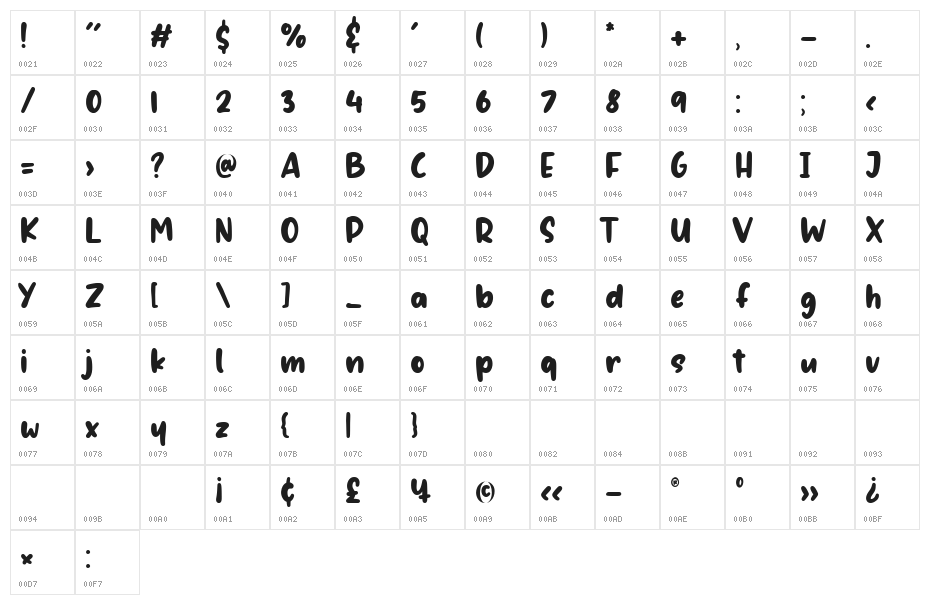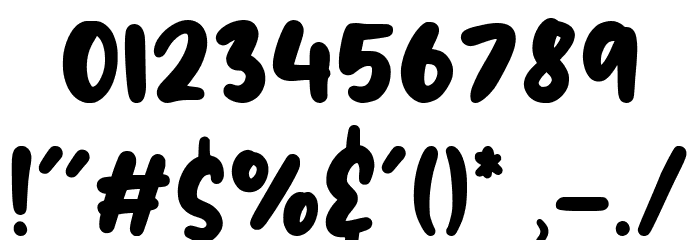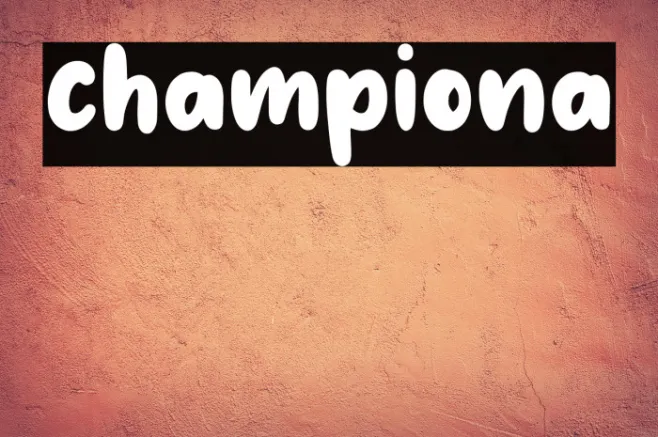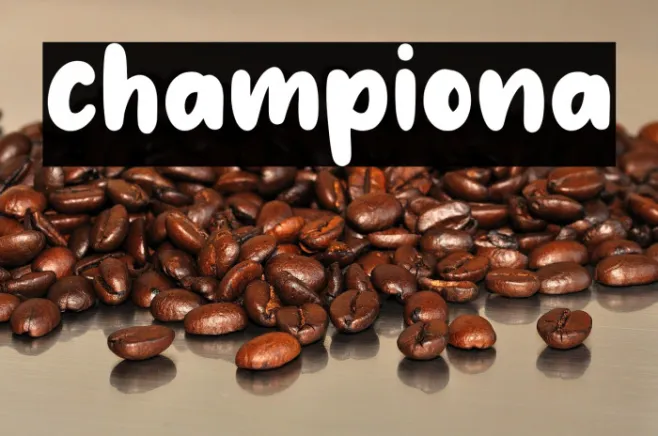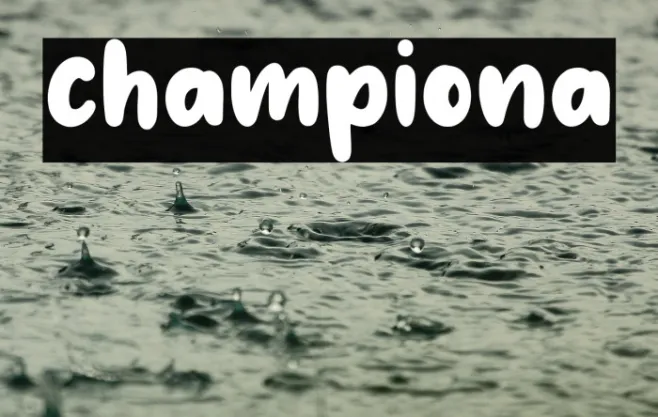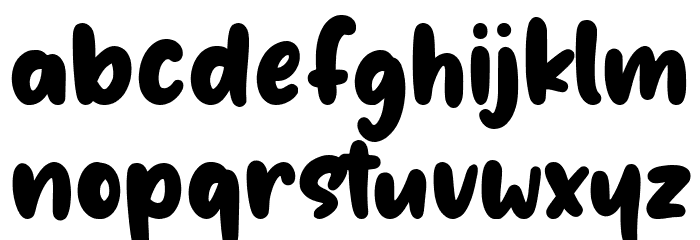
championa Font
championa Description
This font features a bold, playful style with rounded edges and a hand-drawn appearance. The characters are thick and slightly irregular, giving it a casual and friendly vibe. The uppercase and lowercase letters maintain a consistent weight, while the numbers and special characters complement the overall design. The font's informal style makes it suitable for projects that aim to convey a sense of fun and approachability. Its bold strokes ensure readability, even at smaller sizes, making it versatile for various design applications.
| Proposed Projects | Ideal for children's books, playful branding, casual invitations, and social media graphics. |